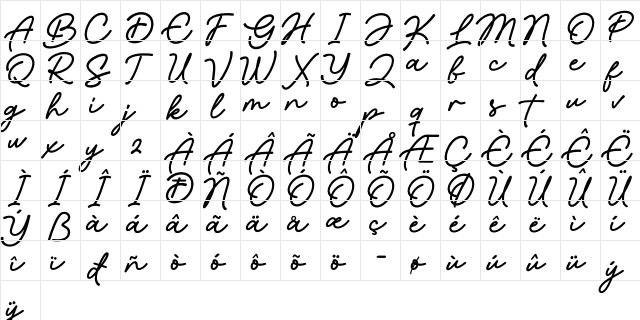
Blues Malone Regular
Regular ·  Rangga Singgih Subekti ·
DesignerRangga Singgih Subekti
Design Context for Blues Malone Typeface
Blues Malone is a composed and adaptable typeface that performs quietly and consistently across a wide range of design contexts.